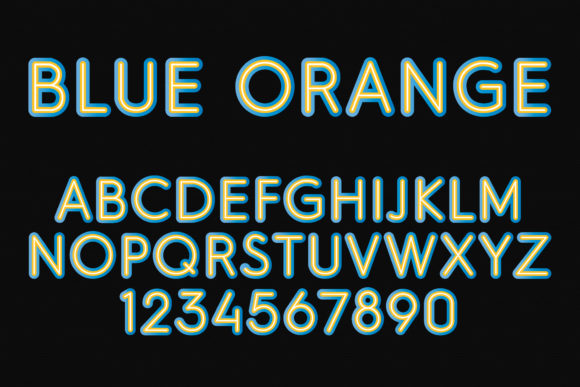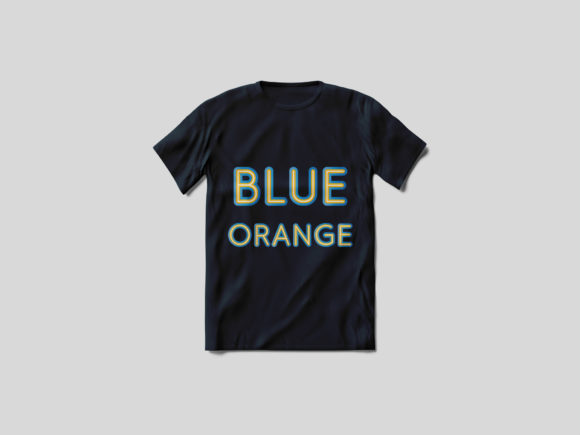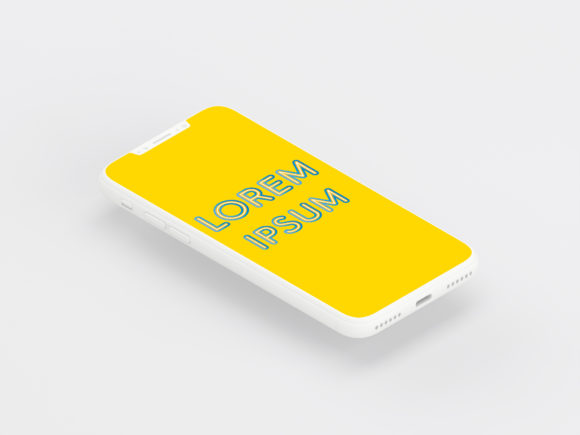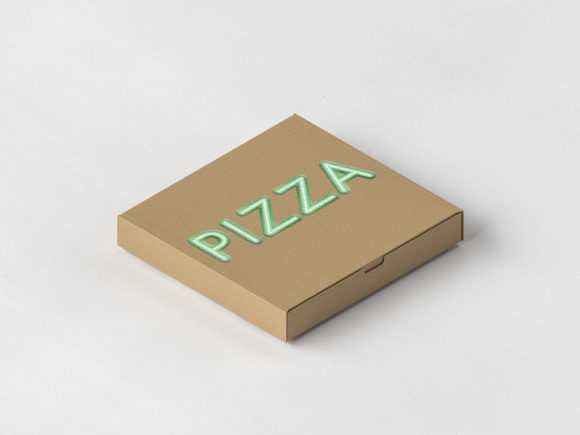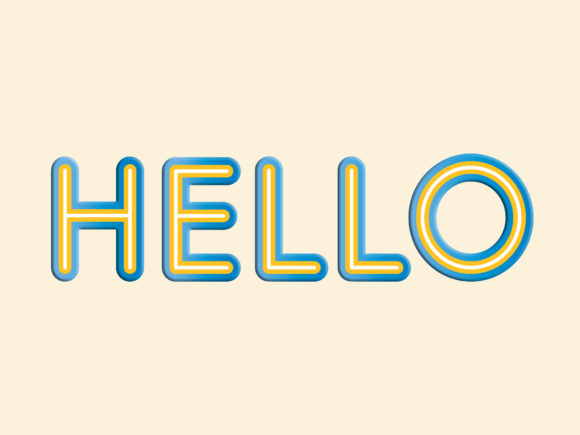
Introducing Blue Orange Font: Elevate Your Designs with a Pop of Color
Are you tired of using the same old fonts in your designs? Look no further than the Blue Orange Font, a simple yet bold color font that’s sure to make your creative ideas stand out. In this article, we’ll dive into the world of Blue Orange Font, exploring its features, benefits, and uses, as well as provide tips on how to get the most out of this versatile font.
What is Blue Orange Font?
Blue Orange Font is a color font, specifically an Opentype-SVG font, that combines the simplicity of a bold font with the vibrancy of blue and orange hues. This unique font is perfect for designers and crafters looking to add a splash of color to their work. Whether you’re creating social media graphics, logos, or cutting files, Blue Orange Font is sure to make your designs pop.
Benefits of Using Blue Orange Font
So, why choose Blue Orange Font for your designs? Here are just a few benefits of using this versatile font:
- Adds a pop of color: Blue Orange Font is the perfect way to add a splash of color to your designs, making them stand out from the crowd.
- Simple yet bold: The font’s simplicity makes it easy to read, while its boldness ensures it grabs attention.
- Versatile: Blue Orange Font is perfect for a range of design projects, from social media graphics to logos and cutting files.
Tips for Using Blue Orange Font
Now that you know the benefits of Blue Orange Font, here are some tips for getting the most out of this amazing font:
- Experiment with different sizes: Blue Orange Font looks great in large and small sizes, so don’t be afraid to experiment.
- Pair with complementary fonts: Pair Blue Orange Font with complementary fonts to create a unique and eye-catching design.
- Use in combination with images: The font looks great when used in combination with images, so try adding it to your photos and graphics.
- Get creative with colors: While blue and orange are the core colors of the font, don’t be afraid to experiment with different colors and gradients.
Who is Blue Orange Font for?
Blue Orange Font is perfect for designers, crafters, and DIY enthusiasts looking to add a pop of color to their work. Whether you’re a:
- Graphic designer: Looking for a bold and eye-catching font for your next project.
- Crafter: Creating cutting files, SVG files, or other DIY projects.
- Social media manager: Wanting to create engaging and shareable graphics.
Blue Orange Font is the perfect addition to your design toolkit.
In conclusion, Blue Orange Font is a simple yet bold color font that’s sure to elevate your designs. With its compatibility with popular design software, ease of use, and versatility, this font is perfect for designers and crafters of all levels. So why wait? Add Blue Orange Font to your creative arsenal and watch your designs stand out!